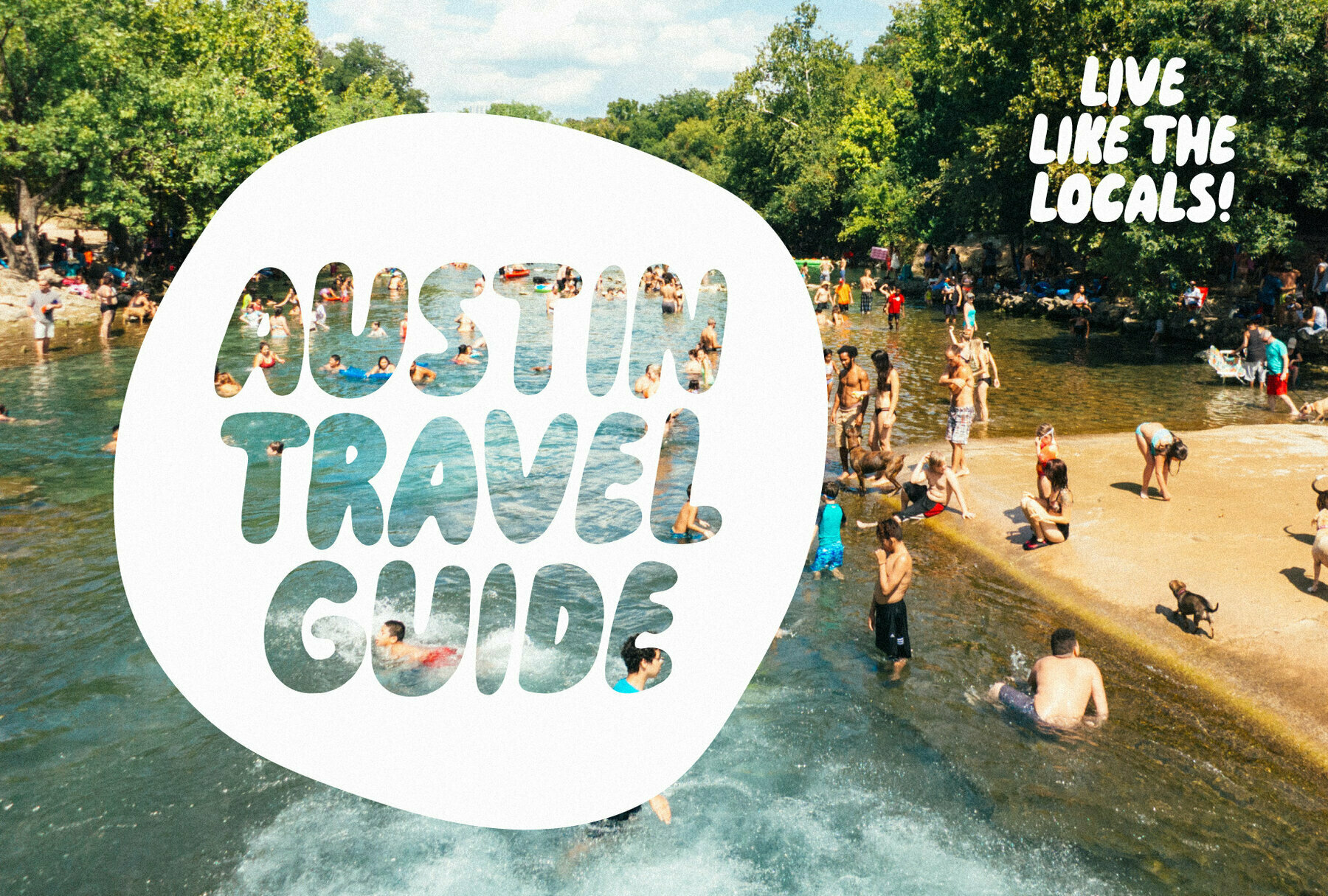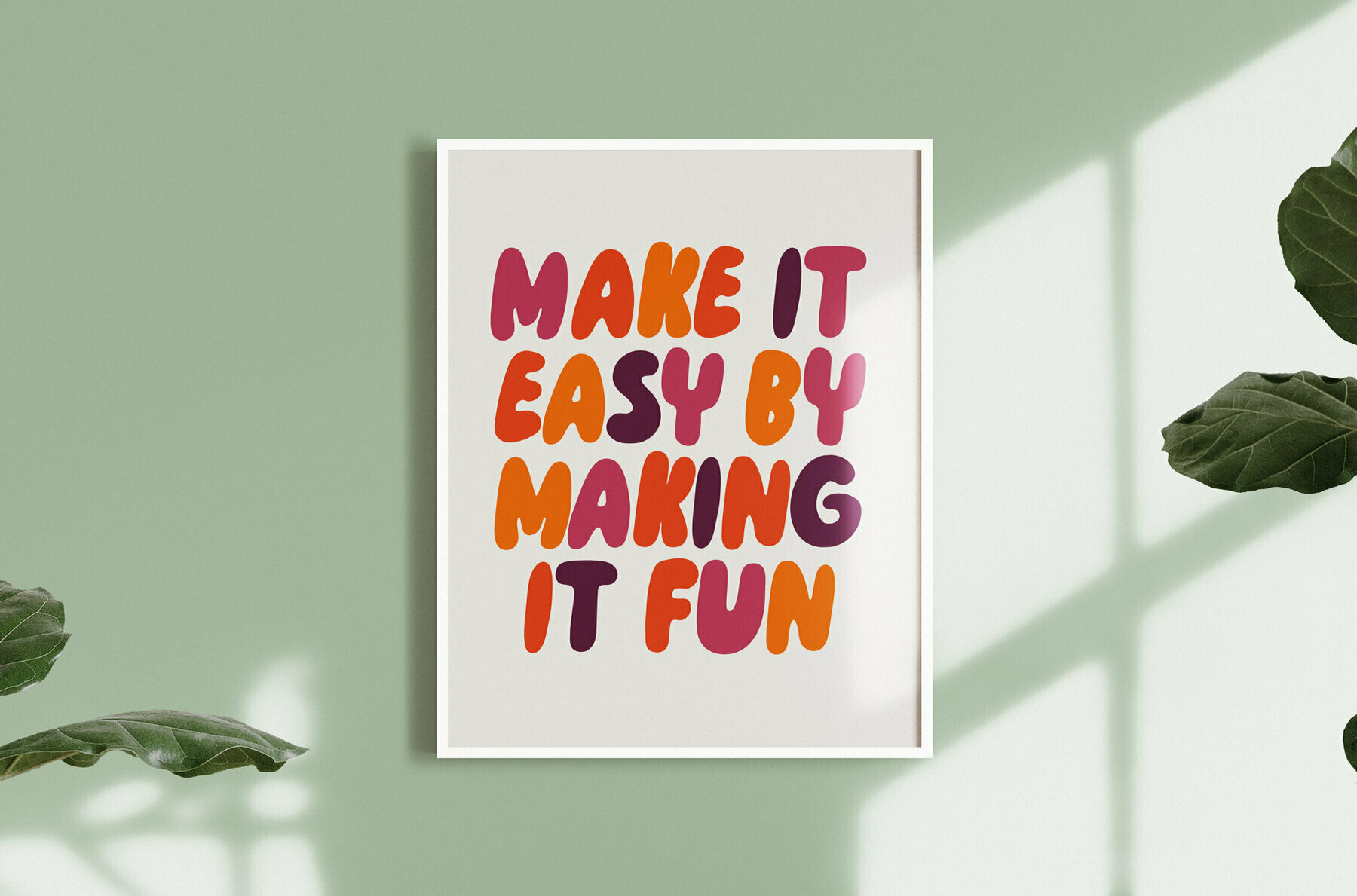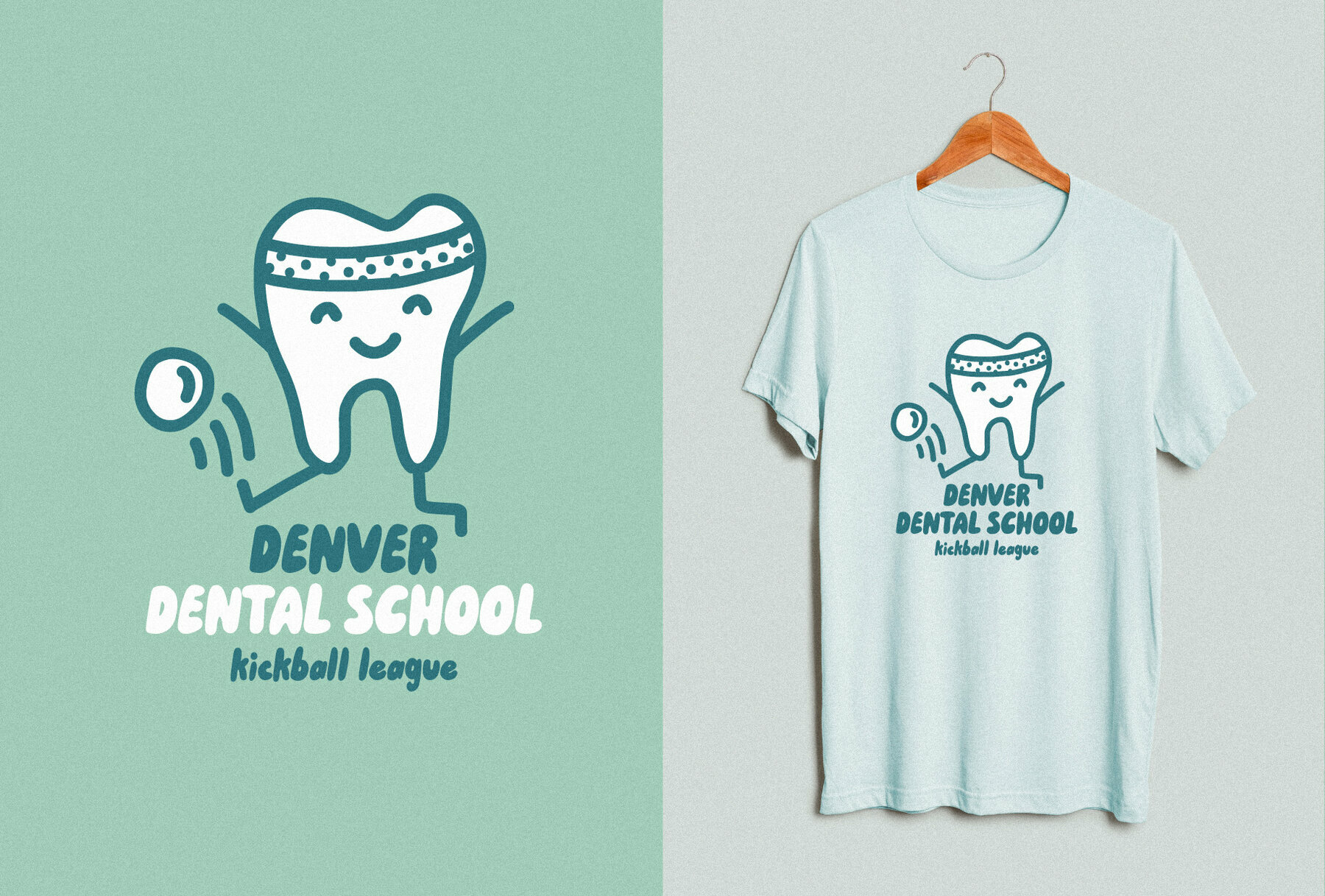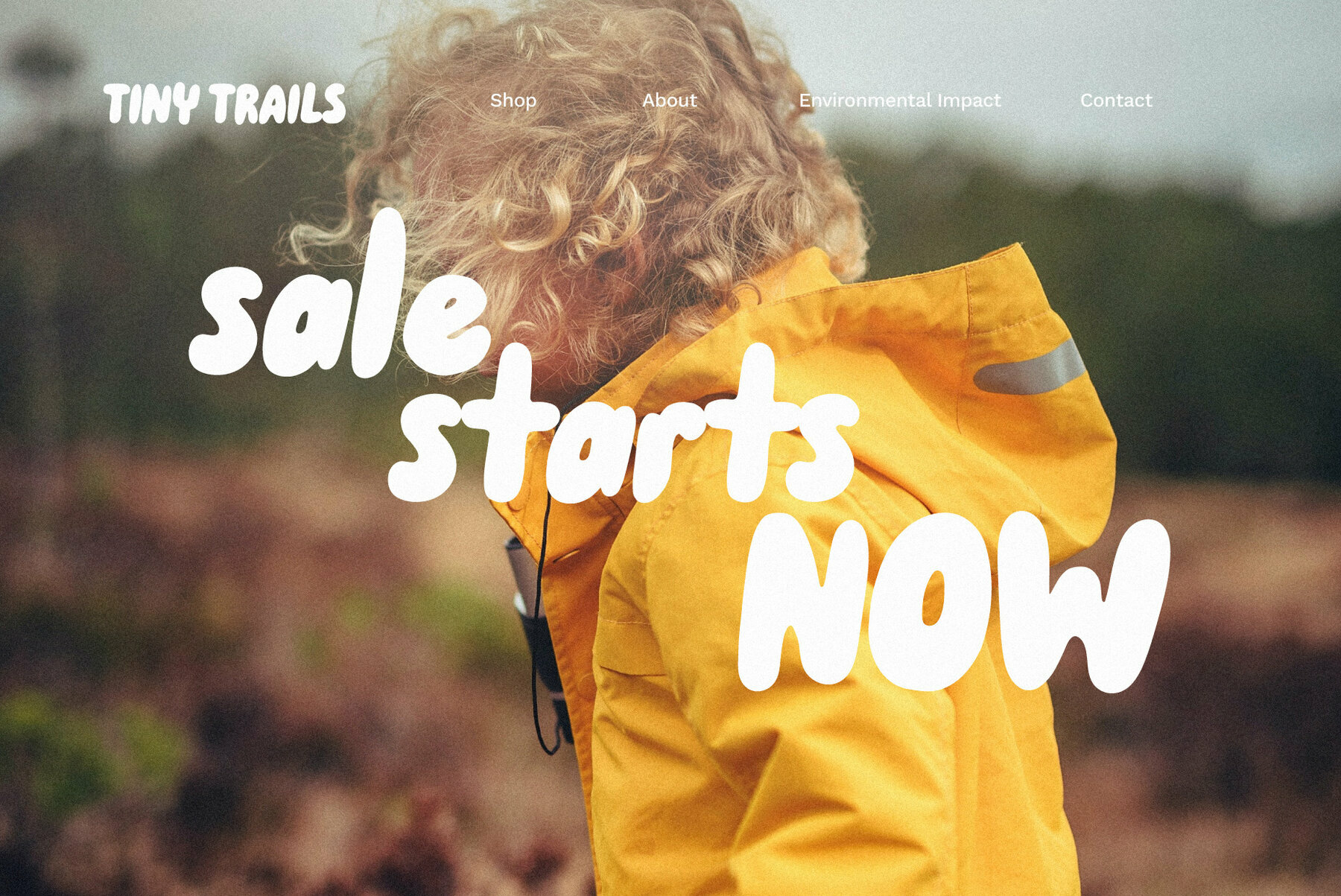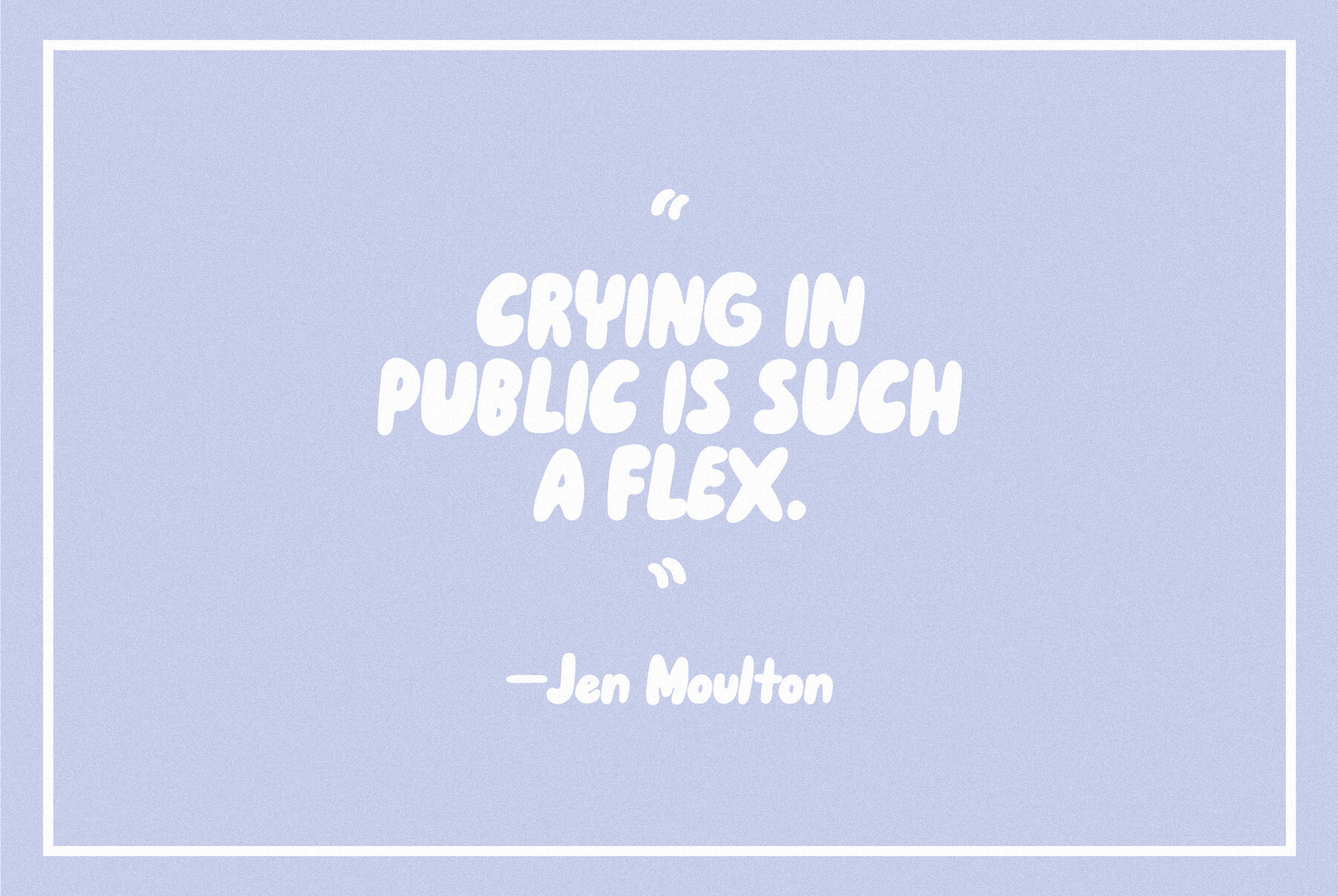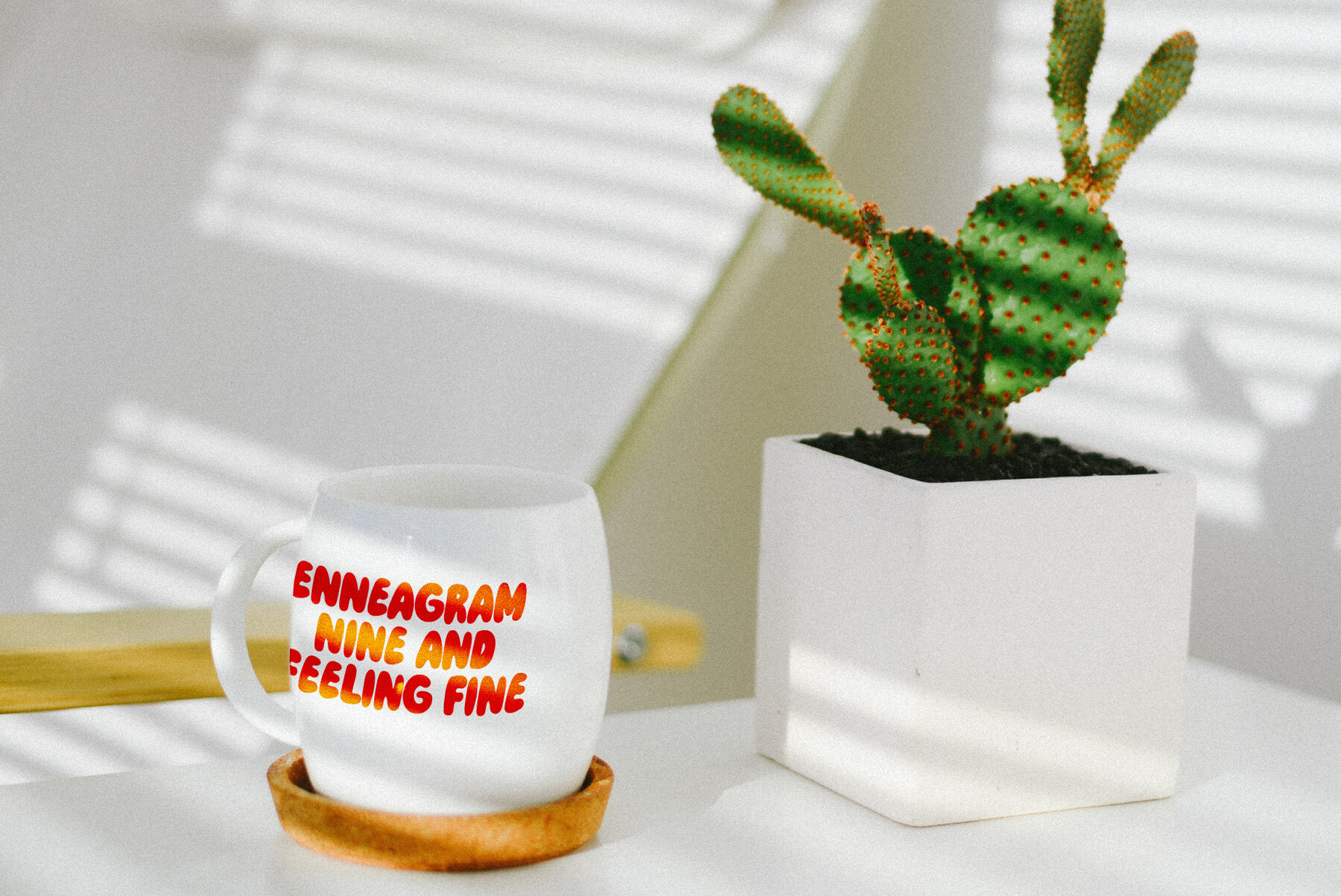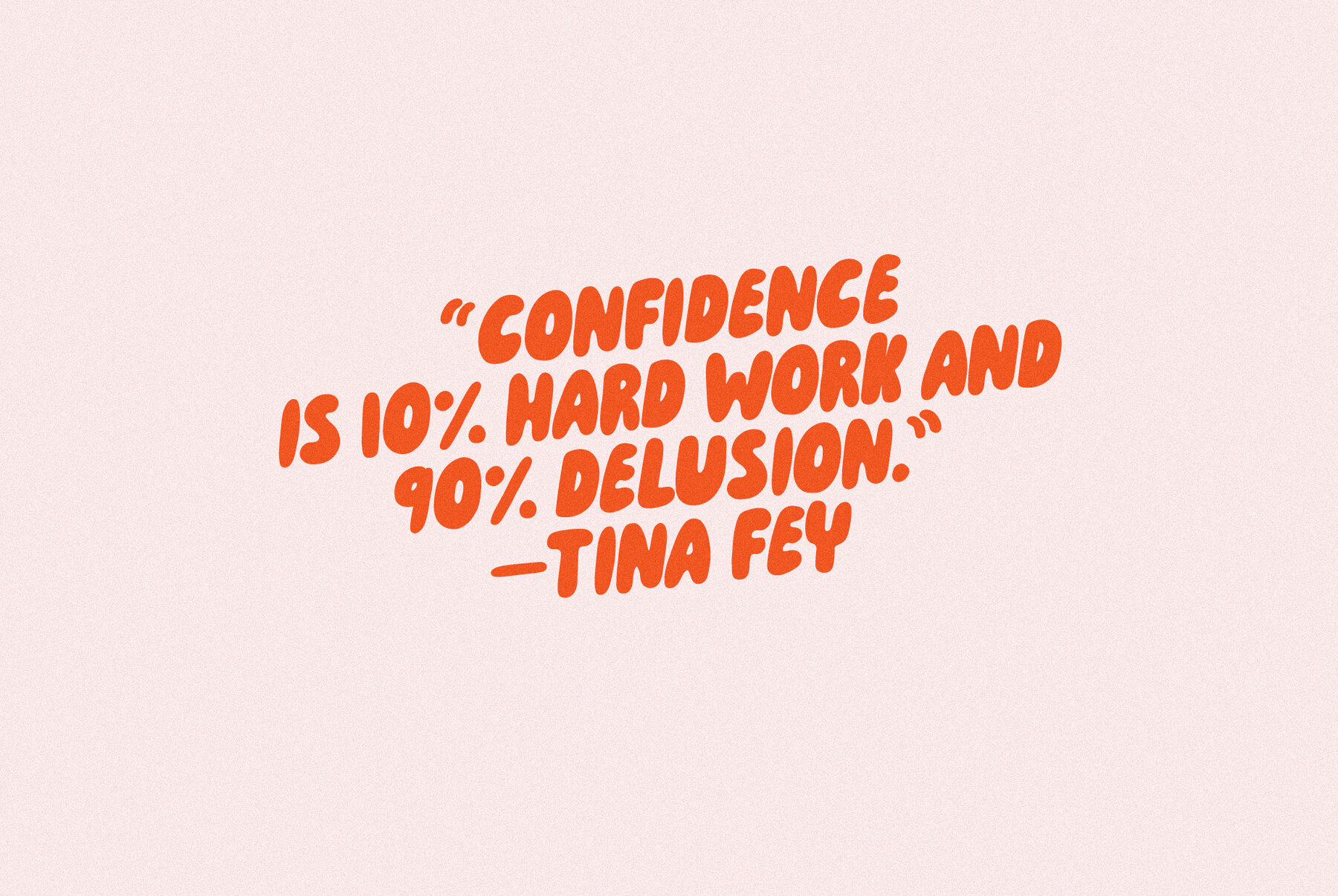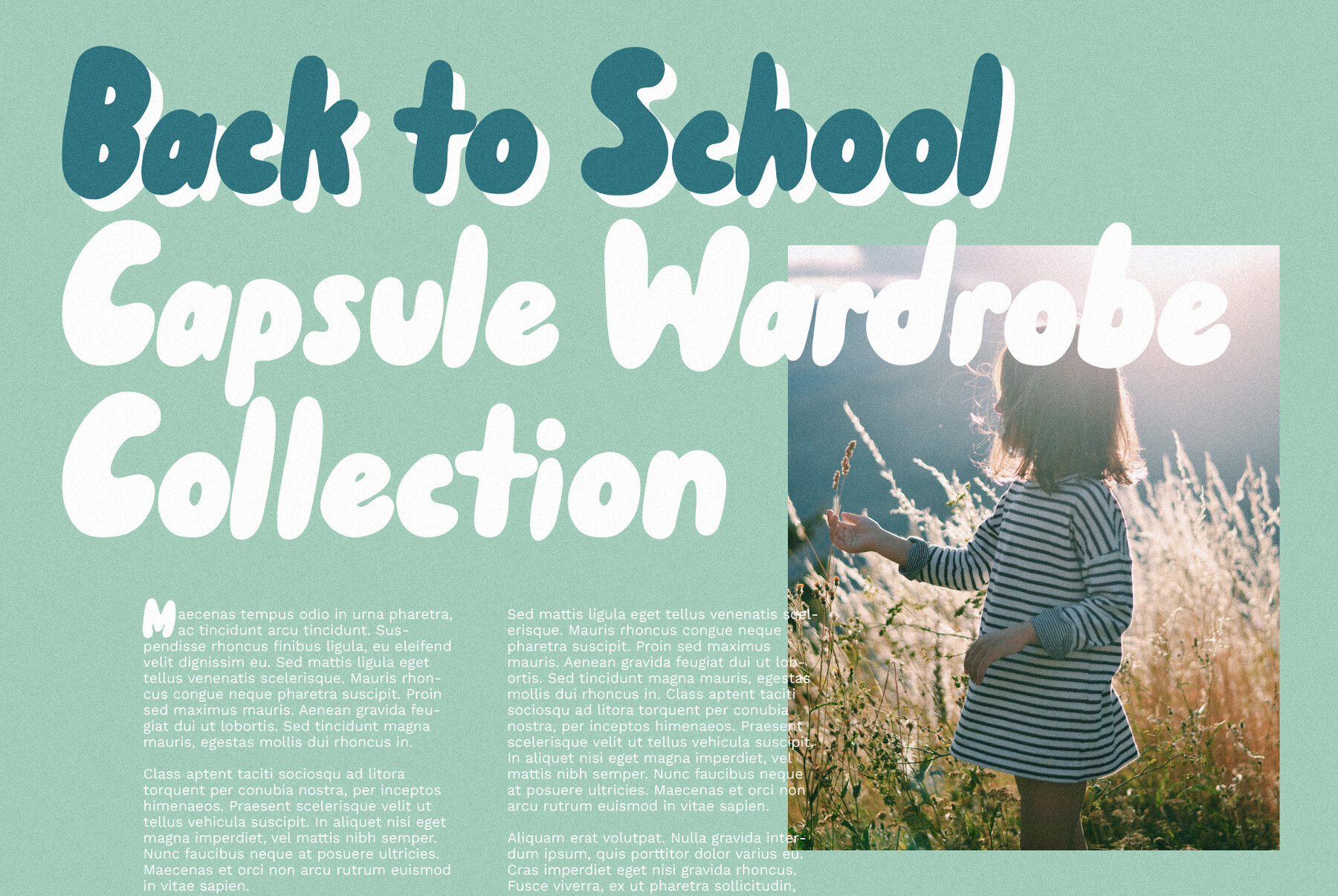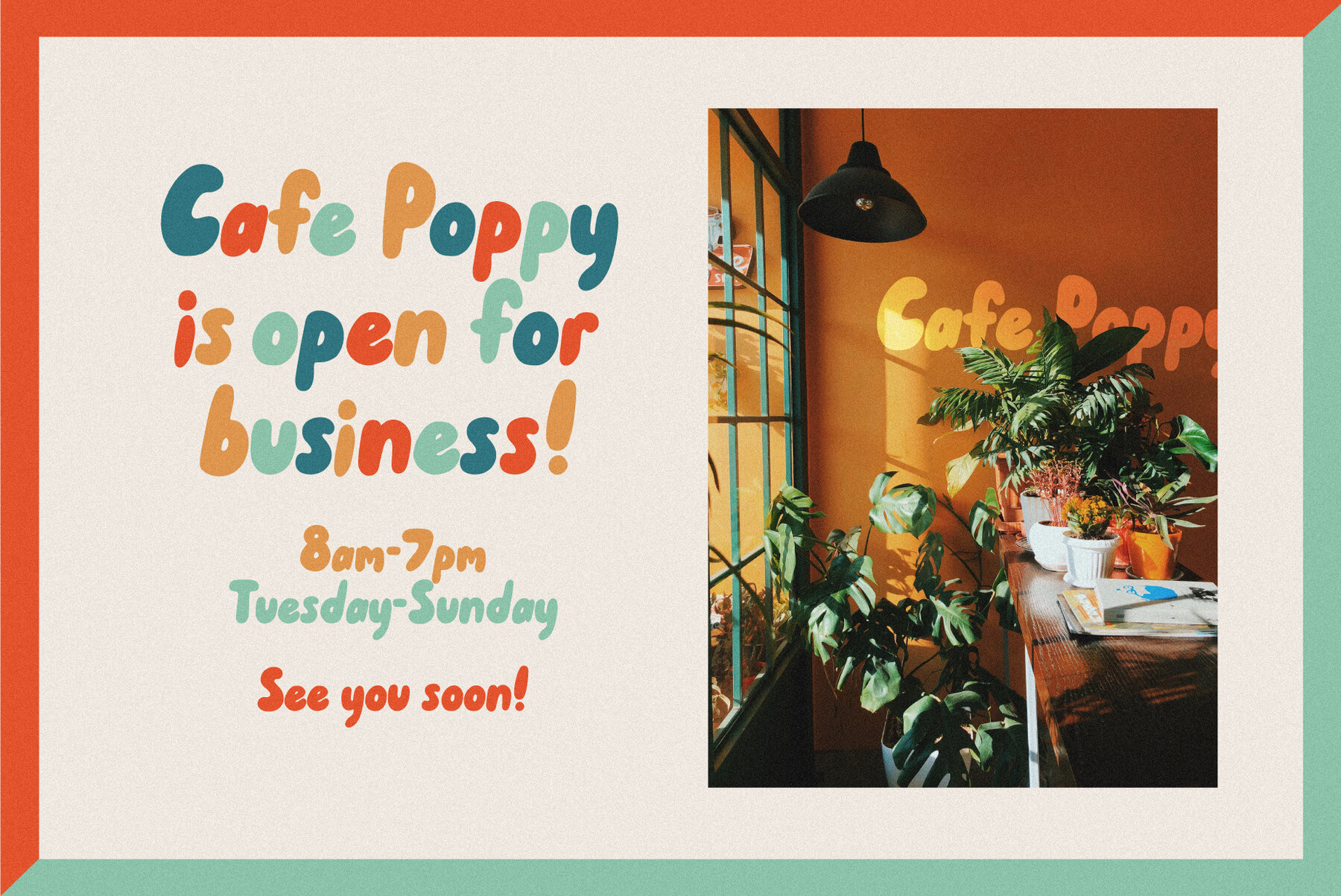
Bounce House Font
Bounce House Regular
Bounce House is a fun, bubble letter font. It's hand-lettered with lots of love and made for the young at heart. Highly recommended for headers, swag, show posters, album art, Instagram promotions and quotes, art prints, logos, book covers, games, patterns and more!
-Uppercase
-Lowercase
-Punctuation
-Numbers